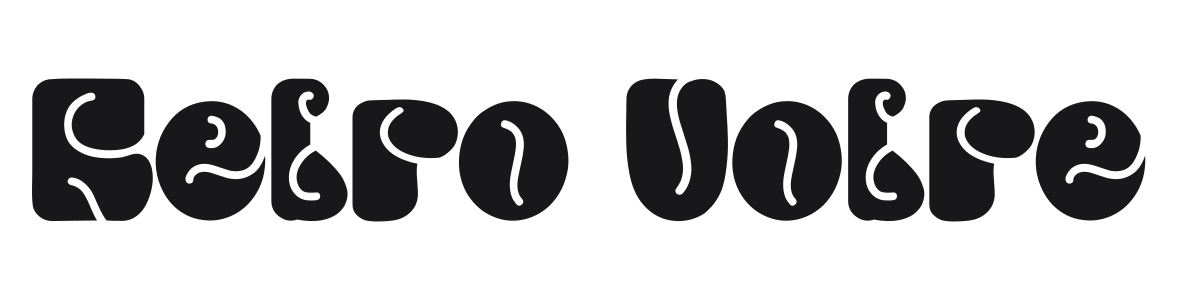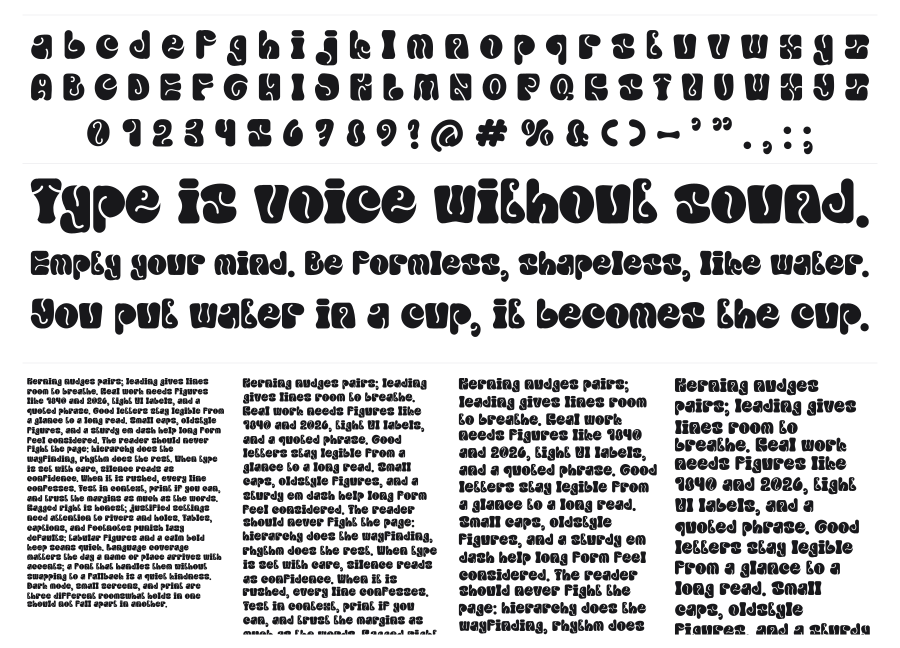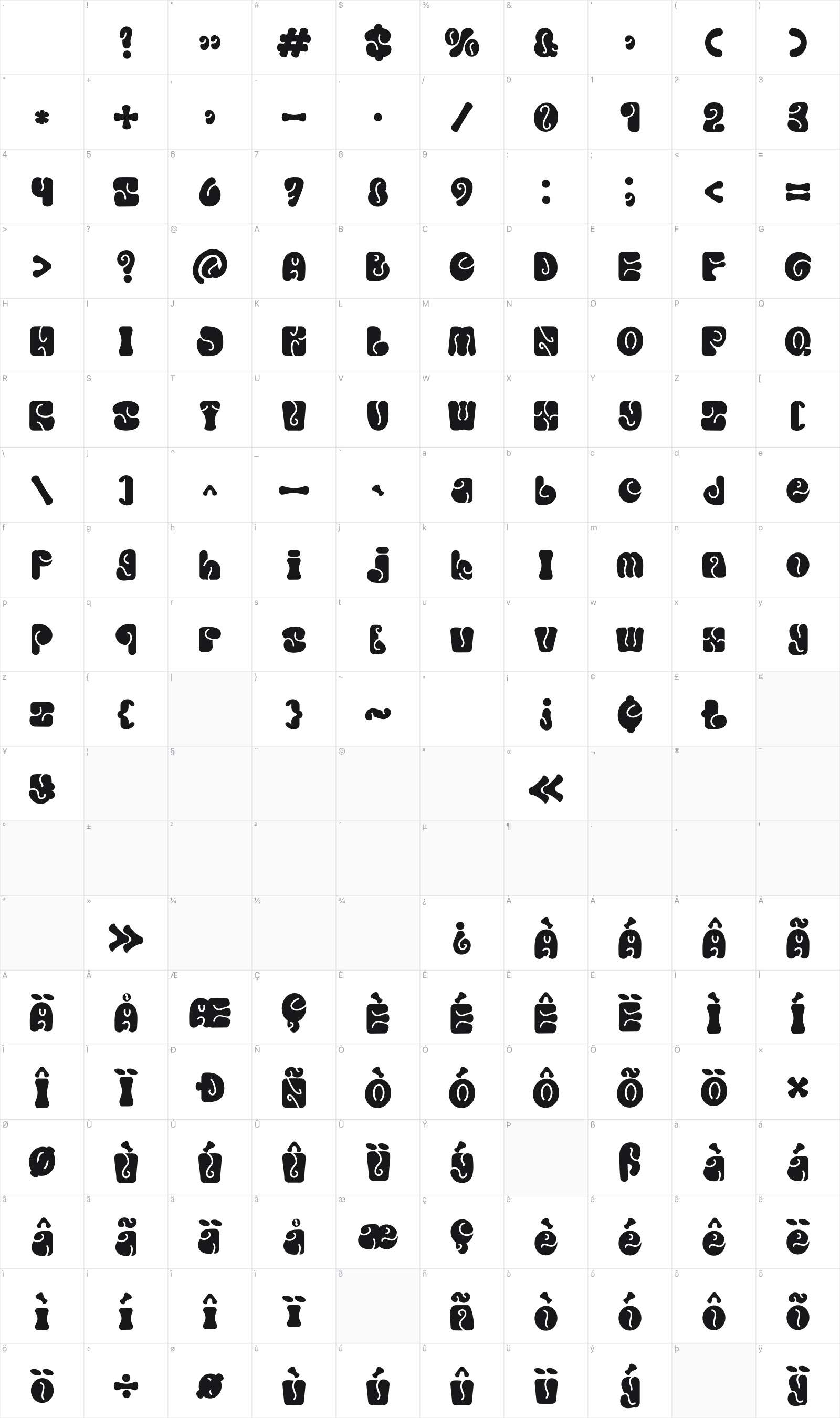
Retro Votre
by Dhabee Studio
Retro Votre is a heavy groovy display font soaked in 1960s-70s psychedelic energy, with inflated bubble-like characters that push and bulge against each other. Deep carved notches and teardrop counters give each letter a playful, almost liquid quality. It channels the era of blacklight posters and vinyl record covers with full commitment.